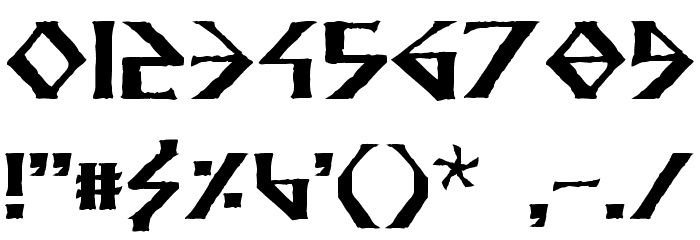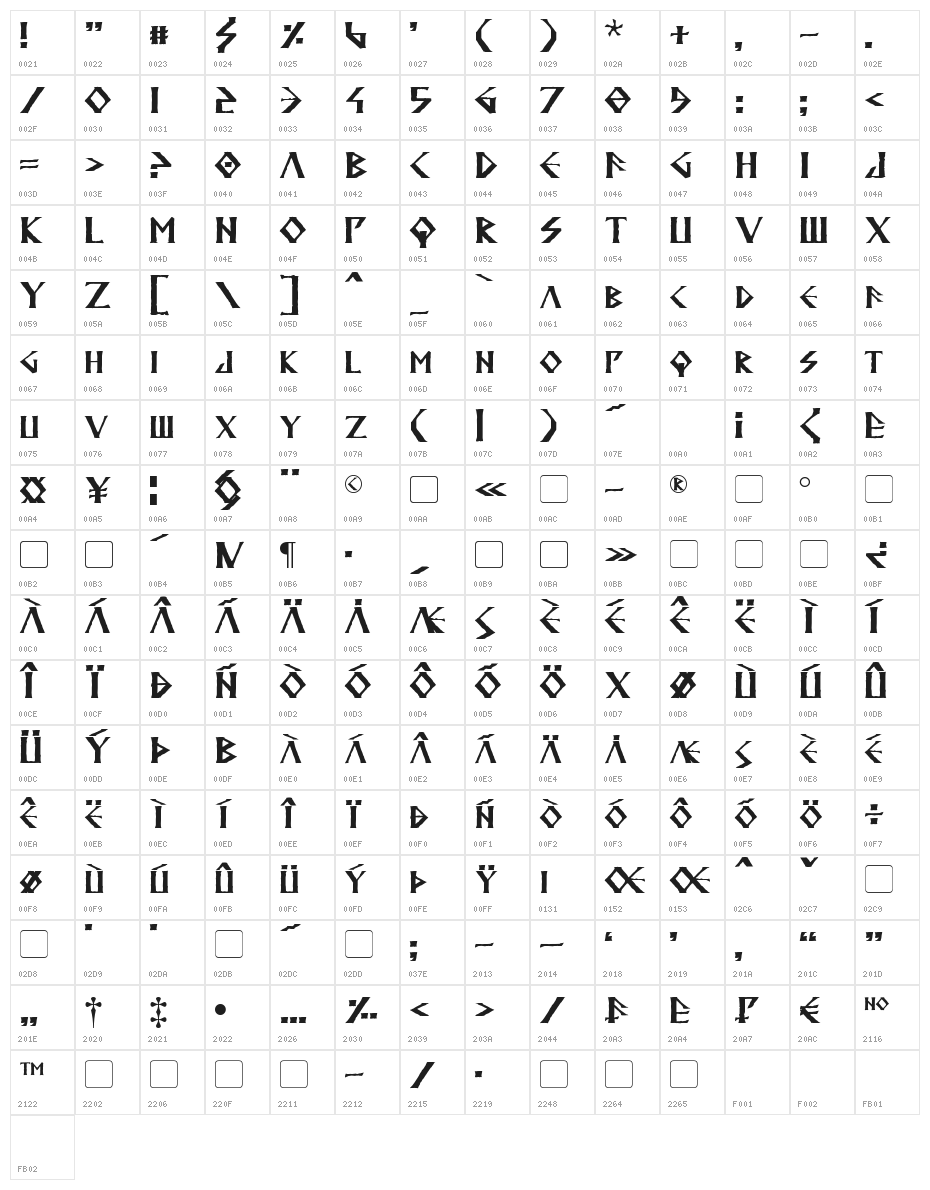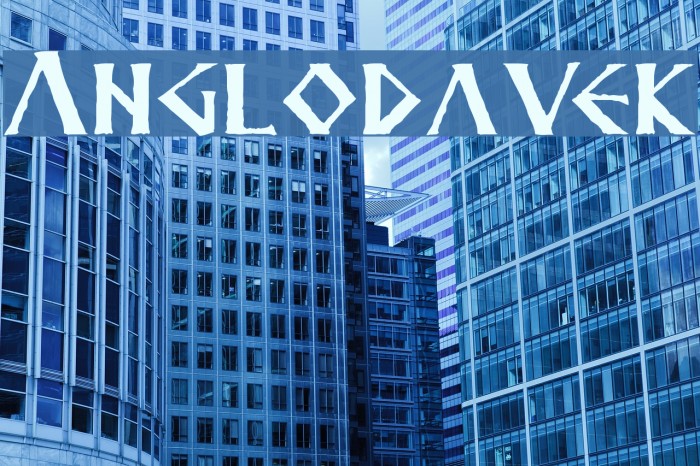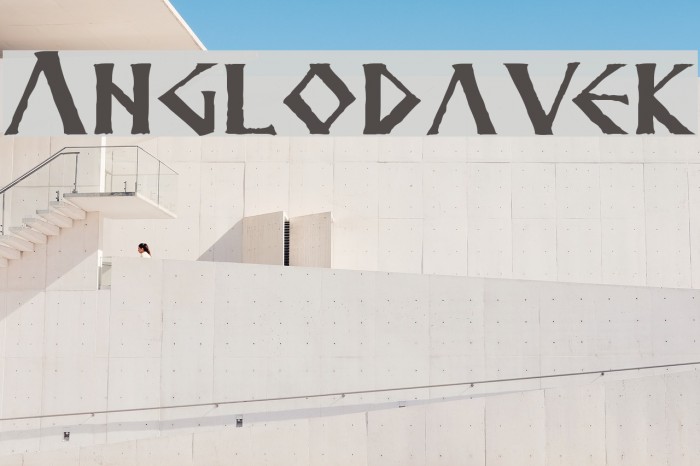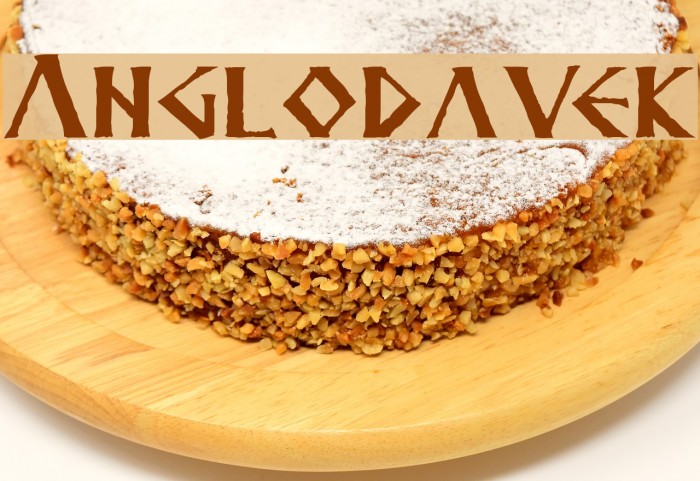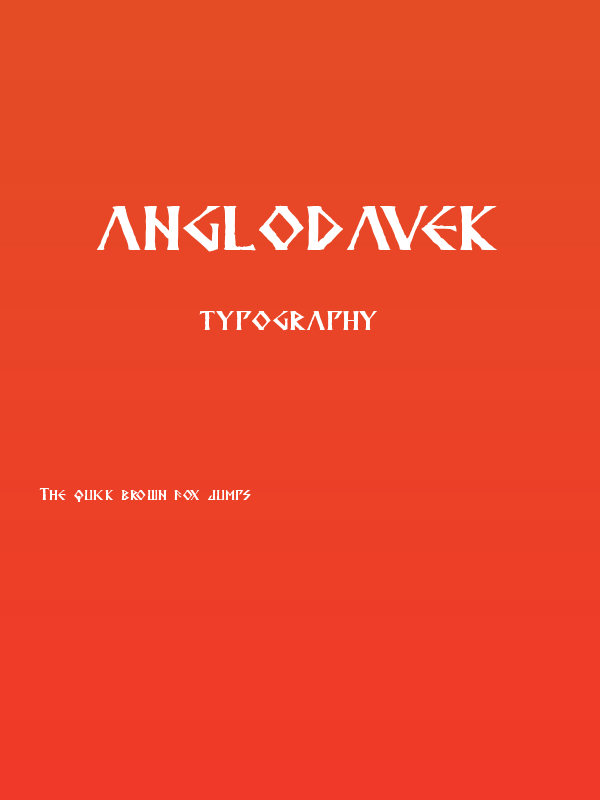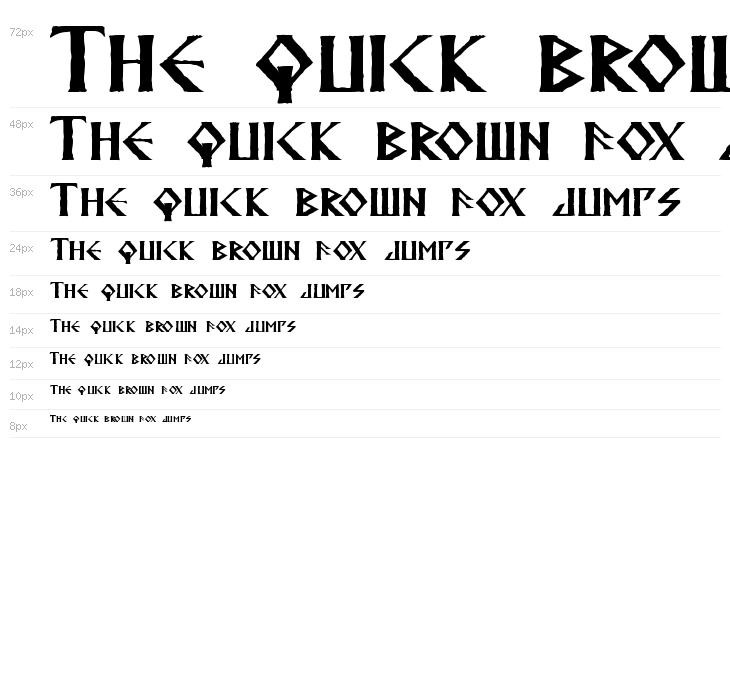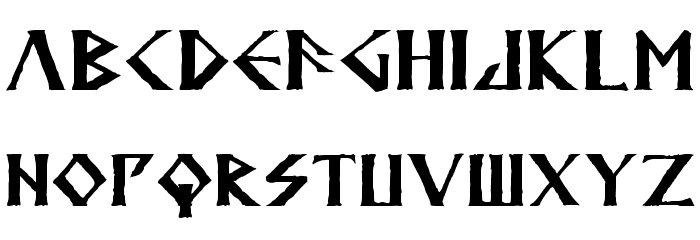
Anglodavek Font
Anglodavek Description
This font features a bold and angular design, characterized by sharp edges and a geometric structure. The letters are crafted with a distinct, edgy style that gives them a modern and somewhat aggressive appearance. The uppercase and lowercase letters maintain a consistent design language, with the uppercase being more prominent and striking. Numbers and special characters follow the same angular theme, ensuring a cohesive look across all glyphs. The font's unique style makes it stand out, suitable for projects that require a strong visual impact.